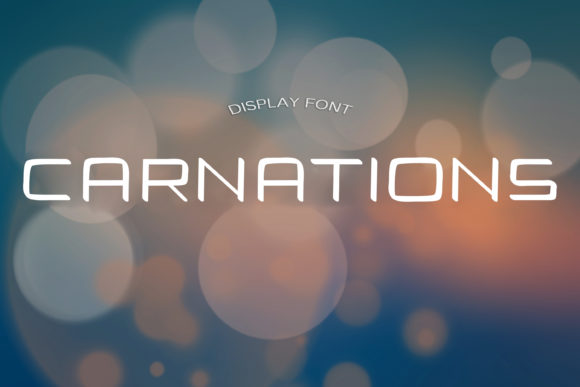
Carnations Font: Elevate Your Designs with Elegance and Modernity
In the world of typography, fonts play a crucial role in conveying messages, expressing emotions, and creating visual identities. For designers and crafters, finding the perfect font can be a daunting task, especially when it comes to creating stunning visual effects. This is where Carnations Font comes into play – an elegant and blocky display font that embodies modern style and sophistication.
What is Carnations Font?
Carnations Font is a thoughtfully crafted typeface that seamlessly blends elegance with a blocky, modern aesthetic. Its unique design ensures that it stands out in any visual project, making it an excellent choice for designers and crafters looking to elevate their work. Whether you’re working on a branding project, creating eye-catching posters, or designing stylish logos, Carnations Font is poised to deliver your message with confidence, legibility, and clarity.
Key Features of Carnations Font
- Elegant and Blocky Design: Carnations Font boasts a distinctive combination of elegance and blockiness, making it a versatile choice for various design projects.
- Modern Style: Its modern aesthetic ensures that your designs look contemporary and appealing to the eye.
- High Legibility: Despite its stylized appearance, Carnations Font maintains high legibility, ensuring that your message is conveyed clearly and effectively.
- Confidence and Clarity: The font’s design instills confidence in your brand or message, delivering it with clarity that captures the audience’s attention.
Who Can Benefit from Carnations Font?
Carnations Font is not just limited to professional designers; its user-friendly nature makes it accessible to crafters and anyone looking to add a touch of elegance and modernity to their projects. Here are some of the professionals who can benefit from using Carnations Font:
- Graphic Designers: Looking for a modern and elegant display font to use in branding, posters, and logos.
- Digital Artists: Seeking unique typography to add character and personality to their digital art.
- Crafters: Creating handmade cards, scrapbooking, or other paper crafts that require stylish and readable text.
- Marketers: Needing a font that can confidently and clearly communicate their brand message across various platforms.
How to Use Carnations Font Effectively
To maximize the potential of Carnations Font, consider the following tips:
- Pair with Complementary Fonts: Use Carnations Font as a headline font and pair it with simpler fonts for body text to create visual hierarchy.
- Experiment with Colors: Take advantage of the font’s versatility by experimenting with different colors and gradients that match your brand’s aesthetic.
- Adjust Size and Spacing: Play around with the font size and spacing to ensure optimal readability and visual appeal.
Carnations Font is a game-changer for designers and crafters looking to infuse their projects with a modern, elegant, and blocky style. Its ability to deliver messages with confidence, legibility, and clarity makes it an invaluable tool in the world of typography. Whether you’re working on a professional project or a personal craft, Carnations Font is sure to elevate your designs and make them stand out.